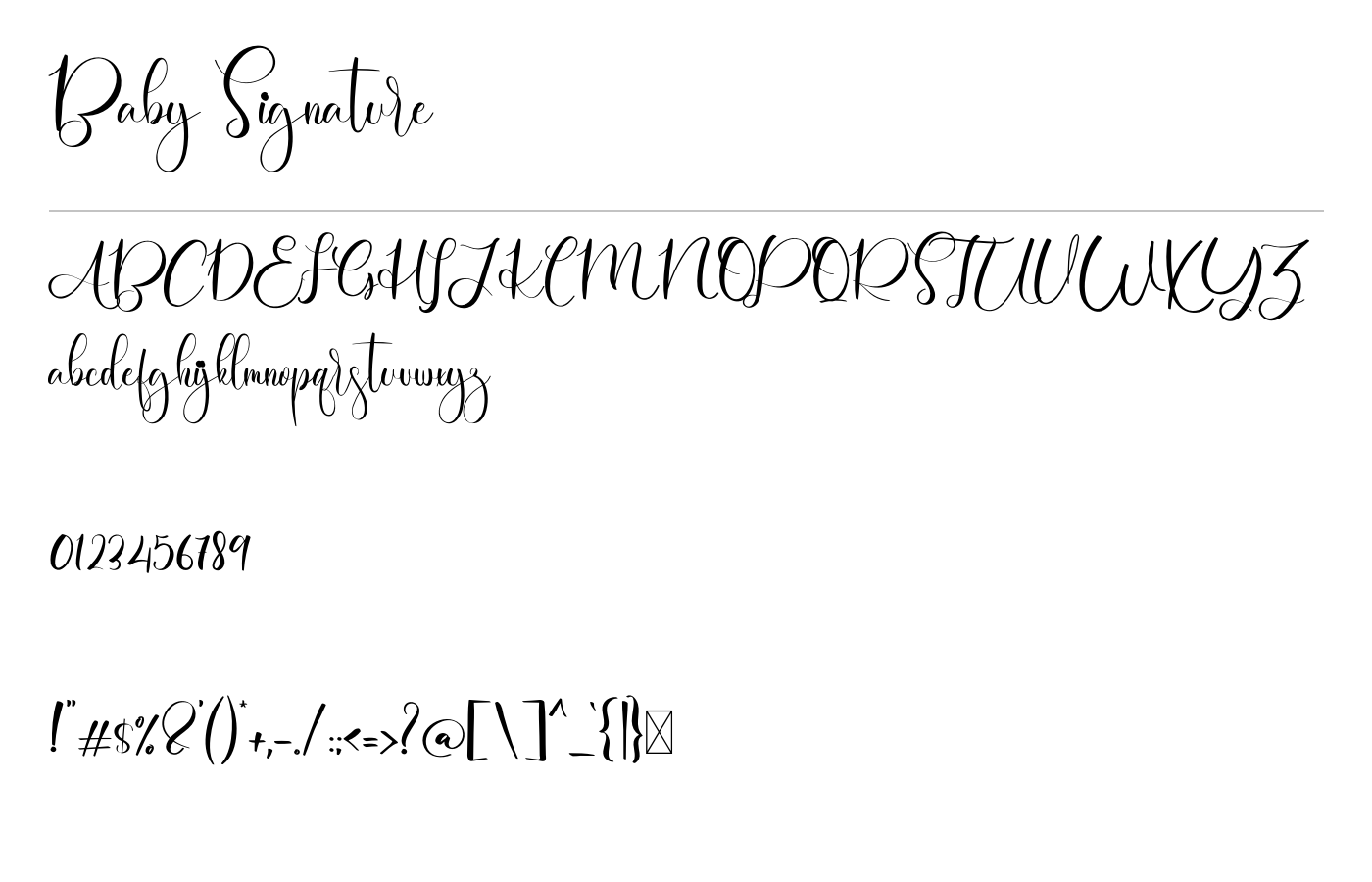
Baby Signature is a delicate, handwritten script font featuring elegant, flowing letterforms with distinctive loops and swirls that evoke a personal, signature-like feel. Its light weight and graceful curves make it perfect for feminine branding, invitations, or any design seeking a charming and sophisticated touch. This font works beautifully in logos, wedding stationery, and fashion-focused projects where a soft, stylish personality is desired.
Baby Signature Font